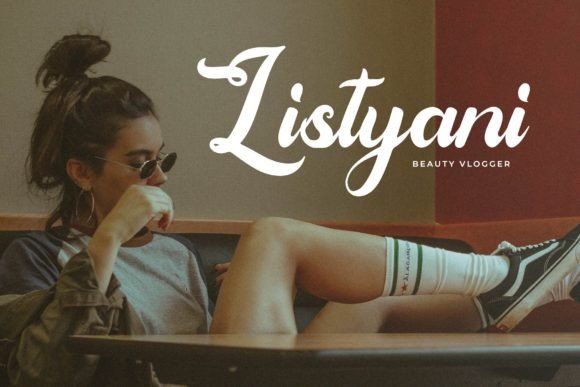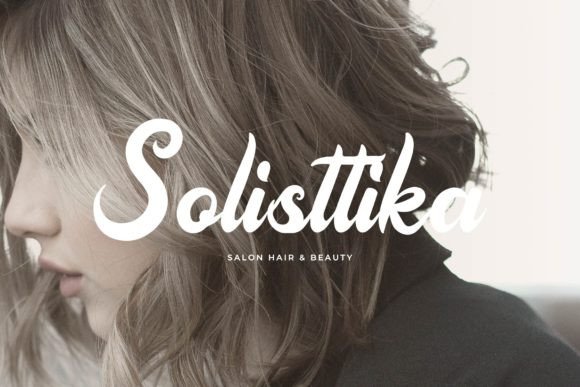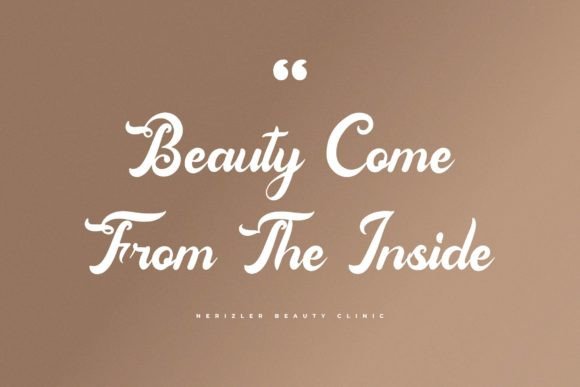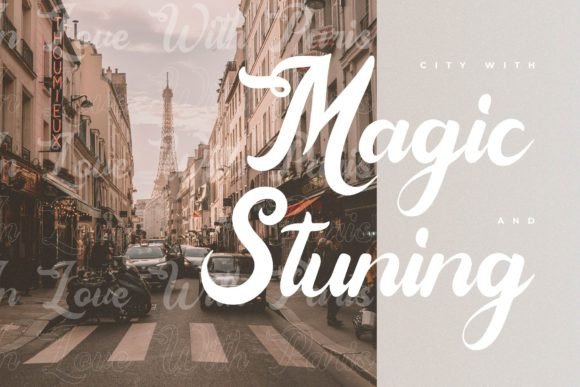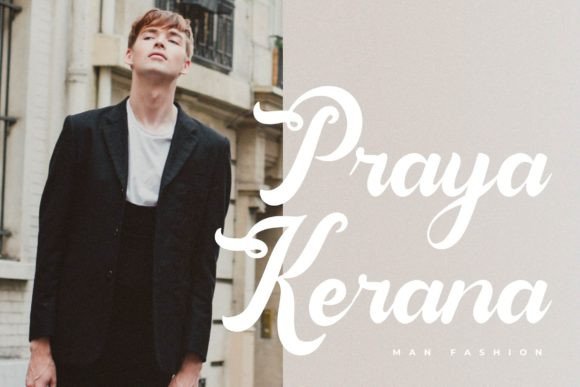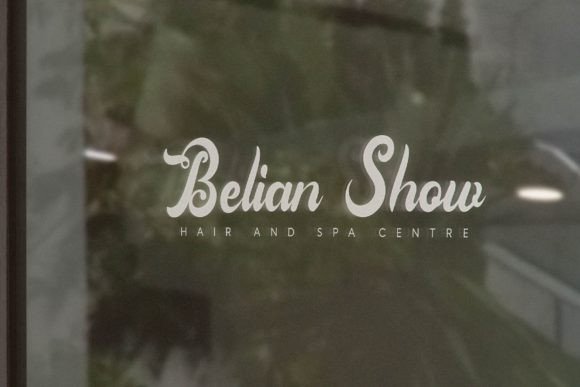
Introduction to Famylia Holistika Font
Famylia Holistika is a hand-drawn script font with a warm and personal touch.
| 👤 Author | Denustudios |
The letters are designed to look like they were carefully written by hand, giving them a natural and friendly feel Perfect for projects that need a cozy and unique look, like invitations, cards, or creative designs.
Key Features of Famylia Holistika Font
Why Choose Famylia Holistika Font?
Famylia Holistika Font offers exceptional quality and versatility, making it a valuable addition to your design toolkit. Whether you’re creating for personal projects or commercial use, Famylia Holistika Font delivers professional results.